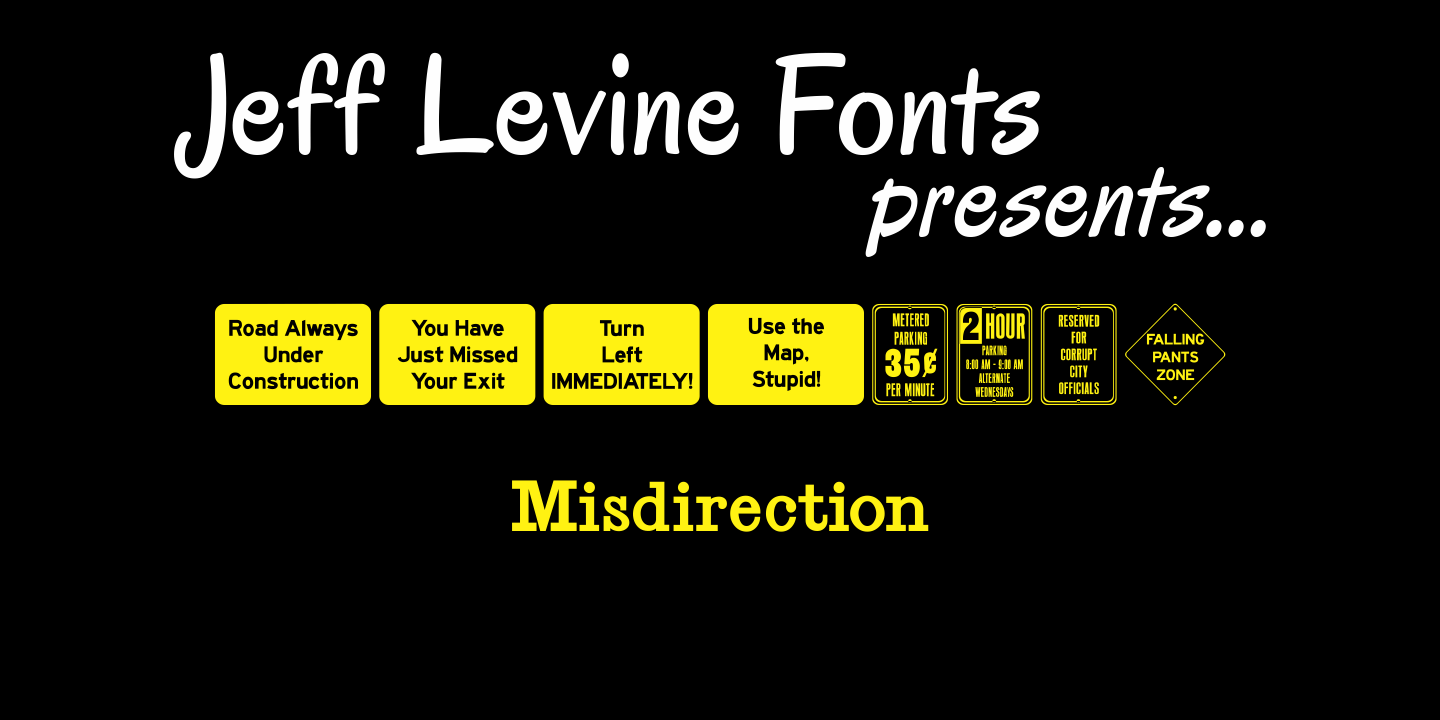
Misdirection
Fonts can be both functional and attractive, but there's no rule against them being fun.
Misdirection JNL is an assortment of 52 outrageous road signs - perfect for protests against government inefficiency or used on novelty note pads... as attention-getting spot art for ads or for whatever your imagination can deliver...
Misdirection JNL Regular by Jeff Levine Fonts